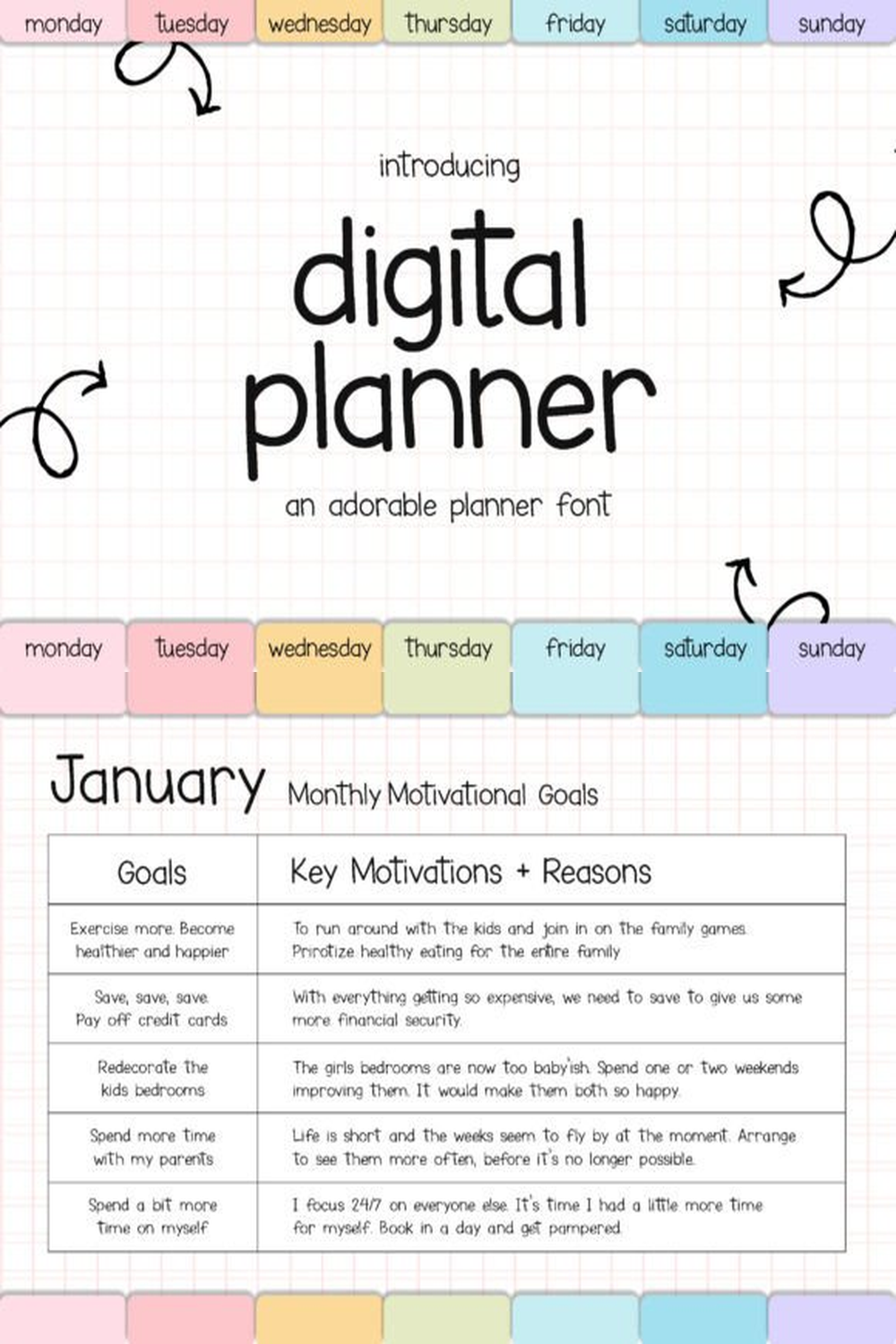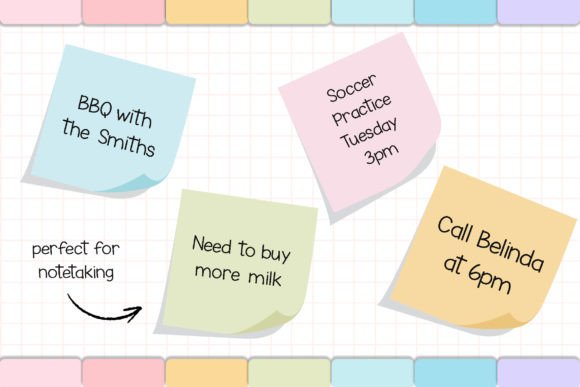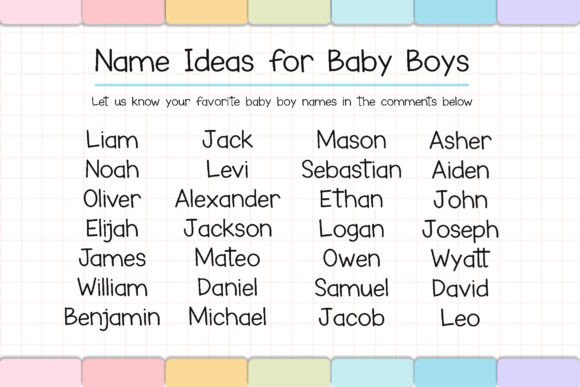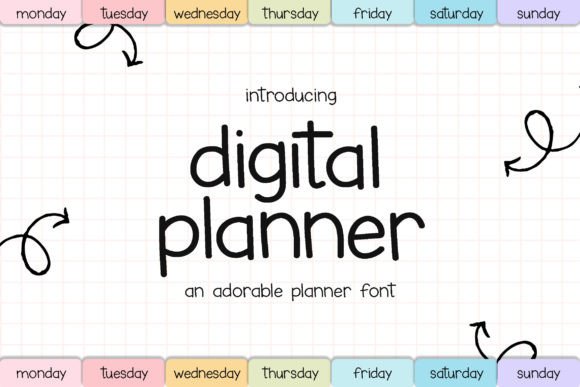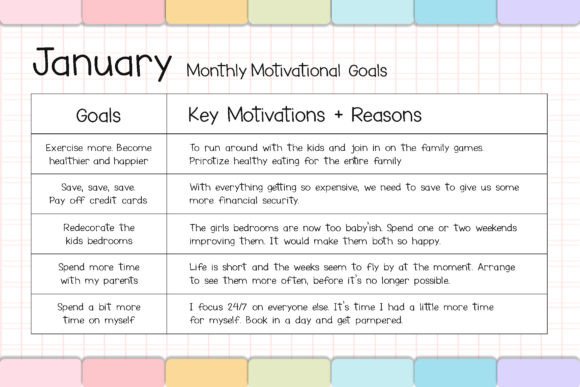
Digital Planner Font
About the Digital Planner Font
The Digital Planner Font is here to transform your projects with its distinctive character and style. Digital Planner is a neat and casual handwritten font. Whether you’re using it for crafts, digital design, presentations, or making greeting cards, this font has the potential to become your favorite go-to font, no matter the occasion!
Digital Planner’s casual, handwritten style works best for projects requiring a friendly and approachable feel. Ideal applications include short headlines, social media graphics, invitations, and packaging for products targeting a younger demographic or those emphasizing a handcrafted aesthetic. Avoid using it for large blocks of body text or UI elements where readability is paramount; its informal nature can hinder legibility in extended passages.
Pairing it with a clean sans-serif like Open Sans for body text creates a balanced contrast, while a playful script font such as Pacifico can enhance its informal charm for specific design elements. For a more sophisticated look, consider pairing it with a geometric sans-serif like Montserrat to introduce a sense of modern structure.
The font’s overall personality is best described as friendly and approachable, with a hint of playfulness. It projects a sense of casual sophistication, making it suitable for brands focused on creativity, handmade goods, or community engagement.